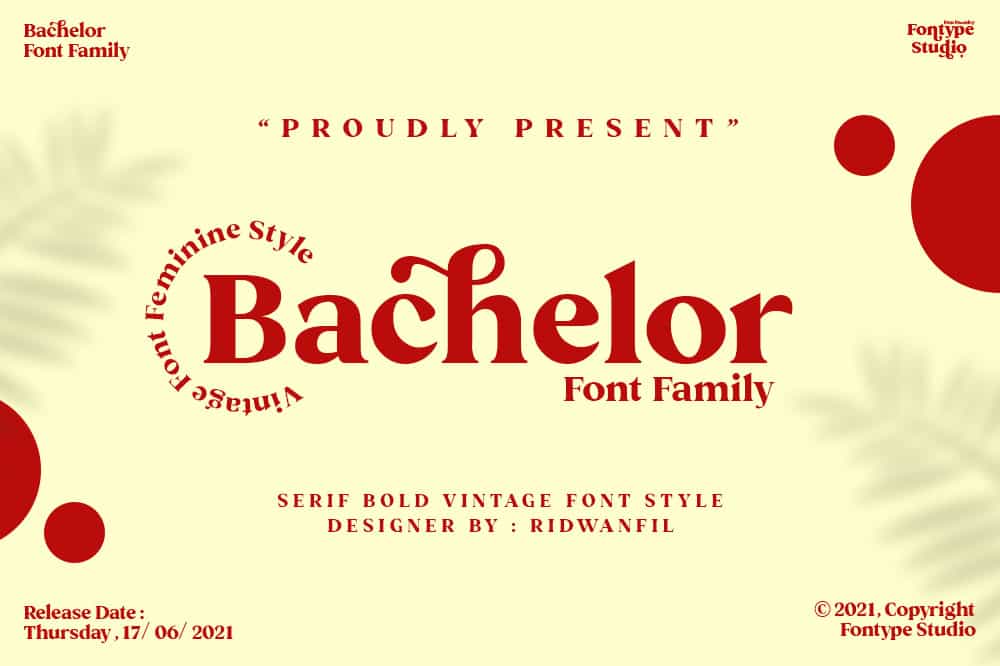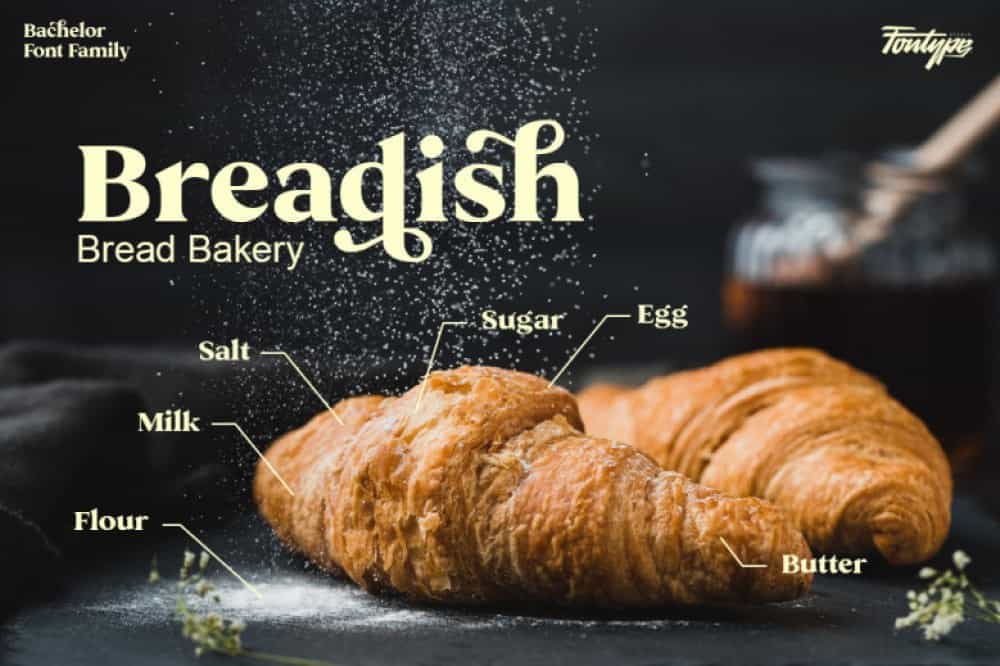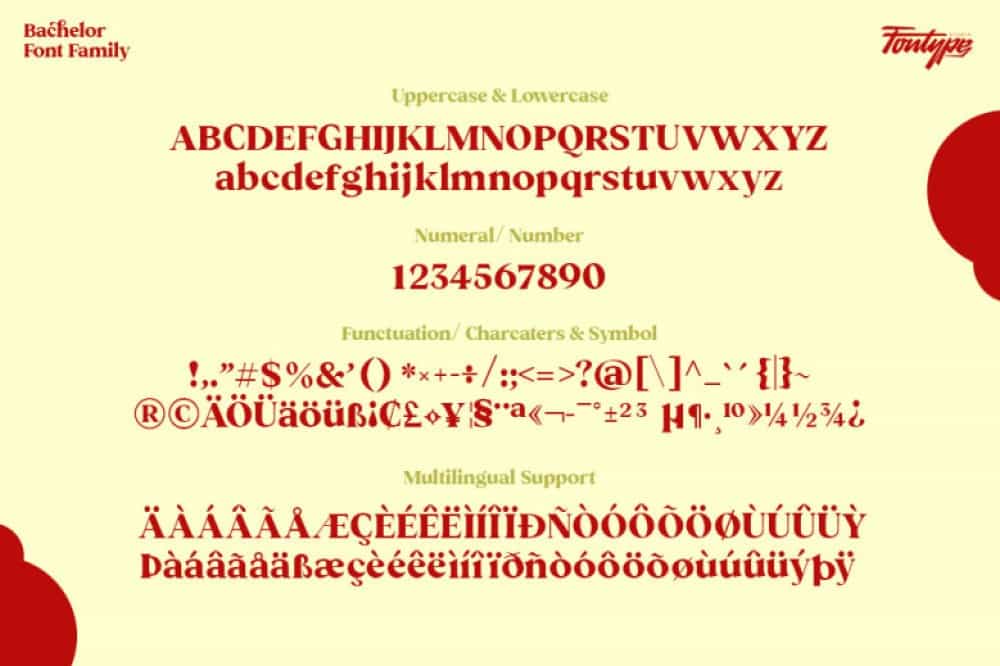
Bachelor Font Family
Bachelor is a bold, thickly-spelled serif font family. Ideal for greeting cards and headlines alike, its sophisticated beauty will give any design a distinct appearance.